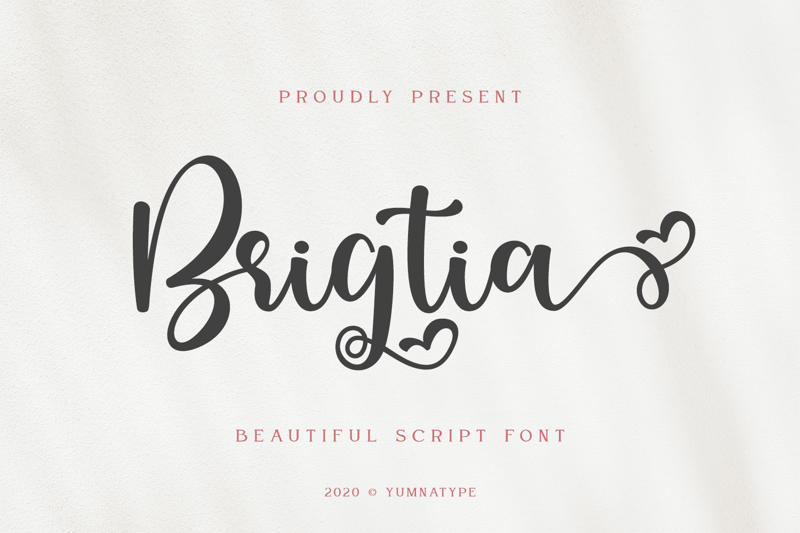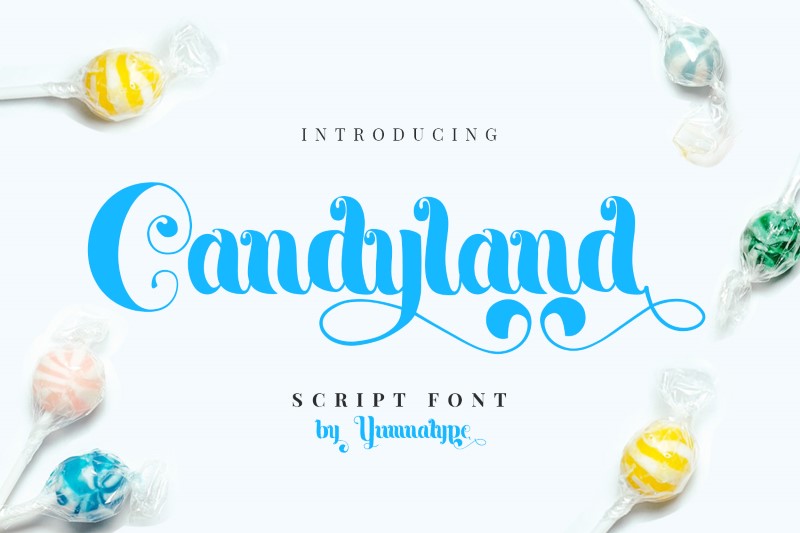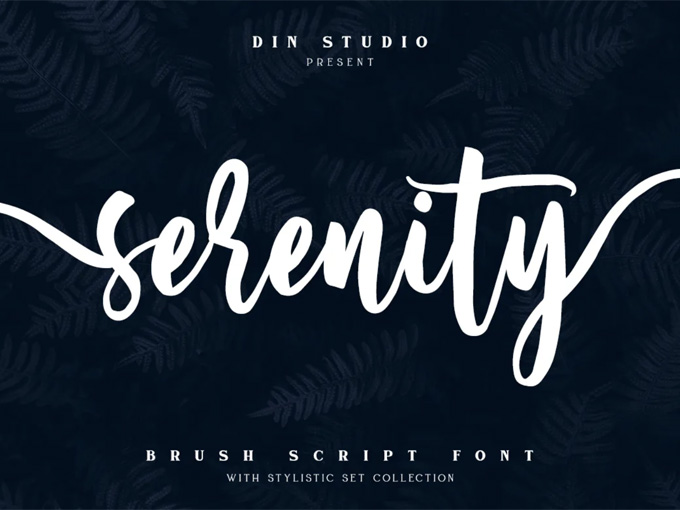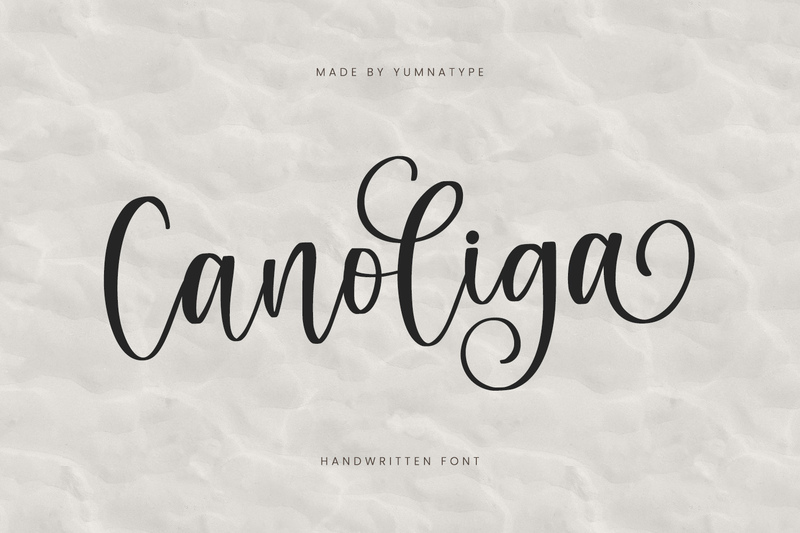
Beautiful Script Font Variations for An Elegant Touch to Any Design Projects
Behind every design, there is typography, which plays an important role as the first impression determining factor. One of the most popular typography styles is the beautiful script font. Script fonts’ delicate and romantic character makes them ideal for various creative applications, including logos, invitations, greeting cards, and posters.
Not only does it improve the appearance of the design, but employing a beautiful script font allows it to convey emotion and visual identity effectively. Script fonts have been popular since the classic print era and continue to remain so in the digital era. The reason for their continued popularity is the ability to adapt to various design objectives, ranging from romantic to elegant. As a result, many designers now rely on this type of font.
So, in this article, we’ll look at some beautiful script font selections and their key advantages, which you can utilize to take your design projects to the next level.
Beautiful Script Font Recommendations for Your Elegant Designs
Angelia—-Lovely Script
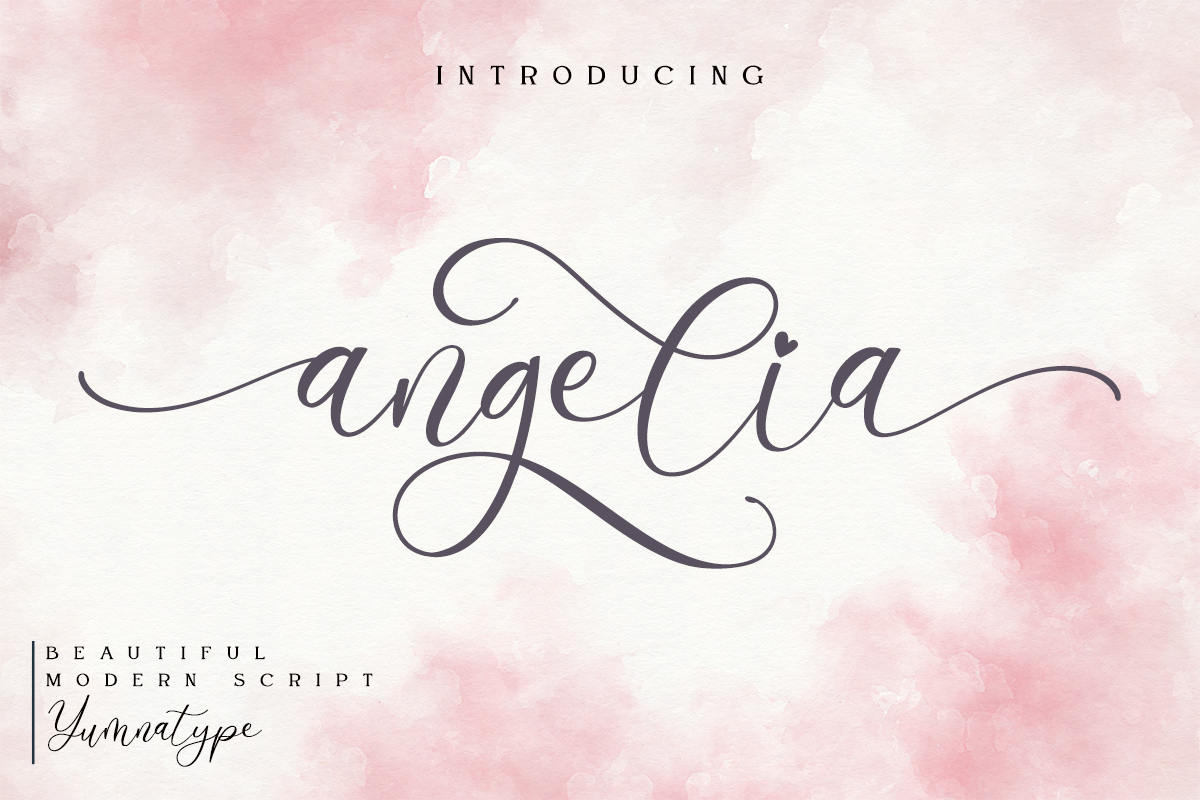
We start with Angelia, a modern script font with elegant, smooth lines, captivating long curves, and balanced thickness. The natural flowing ligature touches make it look luxurious yet warm, making it suitable for various design needs, such as branding, wedding invitations, logos, greeting cards, and other creative projects. The main advantage of Angelia lies in its decorative and versatile letter ornaments. This makes it an ideal choice for designers who want to highlight the artistic, feminine, romantic, and modern aspects in their work.
Carlista Script
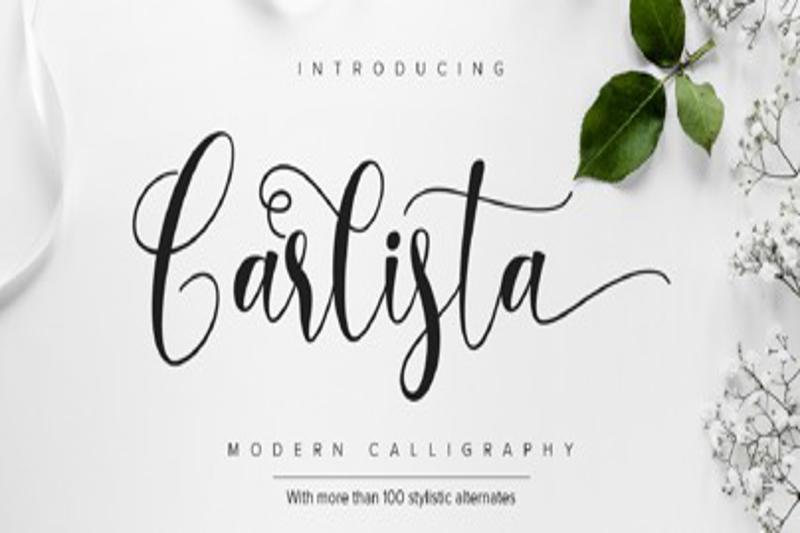
Next, there is Carlista. It is a modern, beautiful script font with elegant strokes and mesmerizing artistic details. The font features smooth curves, long tails, and flexible characteristics that create a feminine impression. Carlista is perfect for wedding invitations, branding, logotypes, quotations, and packaging. Additionally, the font is equipped with 9 ligatures and 112 alternates and swashes for more varied typographic options. The combination of classic and modern styles makes Carlista versatile and relevant for various creative design needs.
Angelin Heart
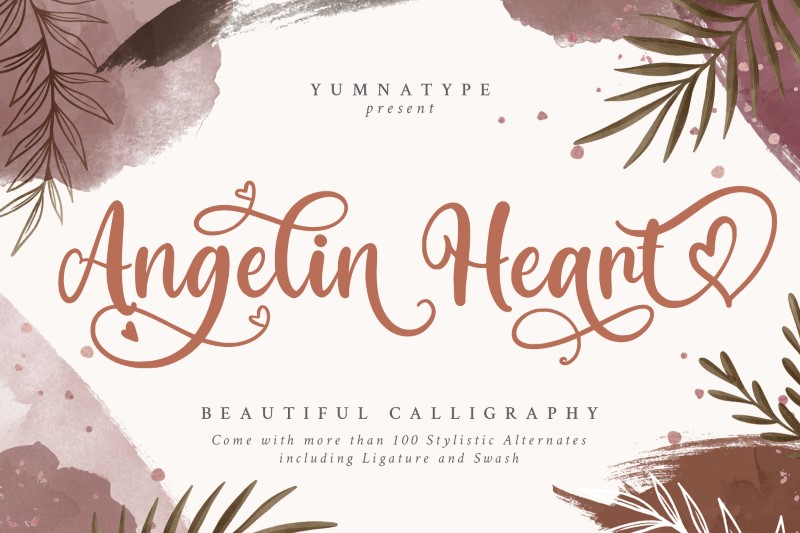
Angelin Heart is a modern calligraphy font with a decorative display style that is elegant, stylish, and full of character. Angeline Heart features letters that resemble elegant and soft handwriting, providing a warm and feminine feel. With flowing ligatures and swashes, complemented by a touch of heart ornaments, it adds a sweet and romantic impression. Angelin Heart has a refined, elegant touch and is supported by multilingual options to make the branding more global.
Intouch Sky
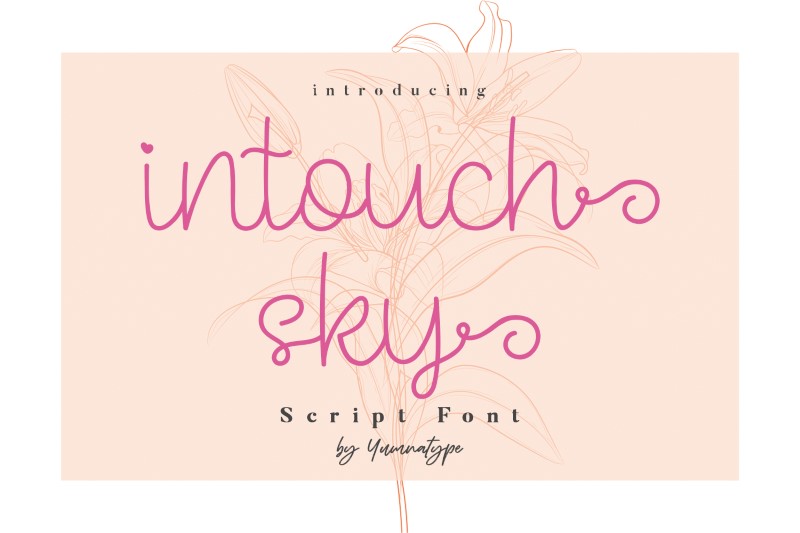
The Intouch Sky font is a beautiful handwritten script font with sweet decorative curves that are light, playful, and elegant at the same time. With its thin and flexible letter characters, along with stylish letter tails, it gives a relaxed and expressive impression. This handwriting font is suitable for various design needs with a feminine theme, ranging from branding creative products, party invitations, greeting cards, packaging, and t-shirts to social media. This font is equipped with ligatures that make letter connections appear natural, character alternatives with intriguing letter shape variations, and decorative swashes for elegant accents. With these complete features, Intouch Sky is able to make designs more vibrant, artistic, and full of modern charm.
Kathiya Script
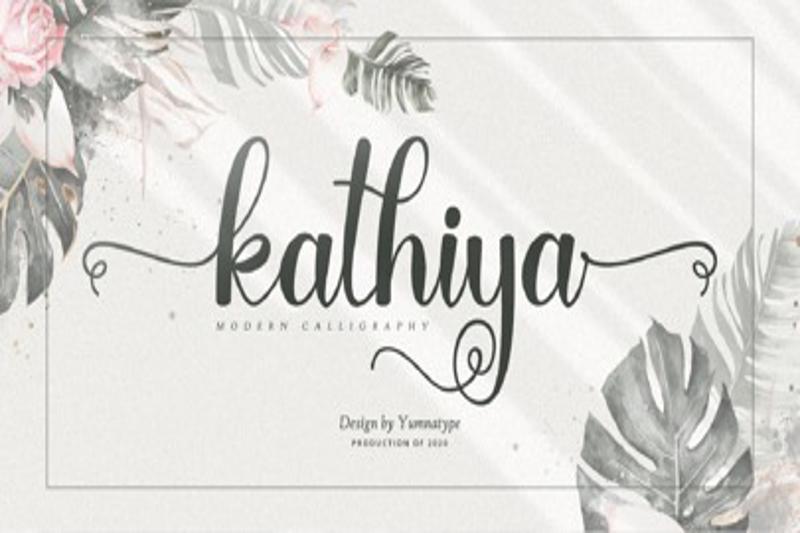
Elegant and smooth lines of the Kathiya font make it a beautiful script font, especially with its graceful and feminine character. Kathiya is great for adorning your wedding invites, branding, logotypes, or other creative projects. Its ligature feature presents smooth and natural letter connections, akin to genuine handwriting. Meanwhile, the alternates offer intriguing variations of letter forms, and the swashes provide an elegant decorative touch at the beginning and end of the letters. With elegant and feminine details, Kathiya is able to make every design look professional, romantic, and classy.
Amelia Script
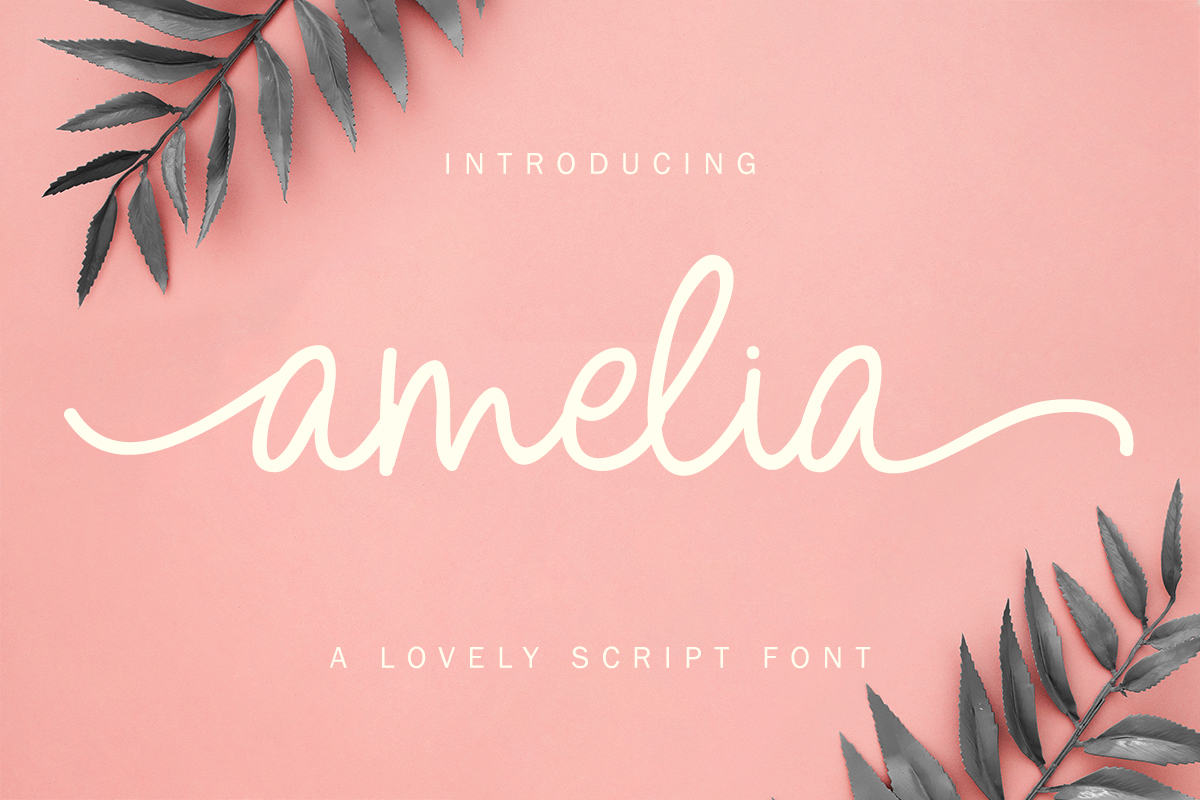
The elegant and warm character of Amelia Script as a monoline handwritten font makes it look naturally beautiful and smooth. Its modern and youthful look makes it work so well with trendy design, branding, quotations, T-shirts, and more. Moreover, Amelia Script is complete with multilingual characteristics and stylistic alternates that can give you mesmerizing typography with incredible flexibility. Amelia Script is a perfect choice for anyone who wants to enhance their design projects.
So, have you found your favorite collection of beautiful script fonts now? Get ready to take your designs to the next level!